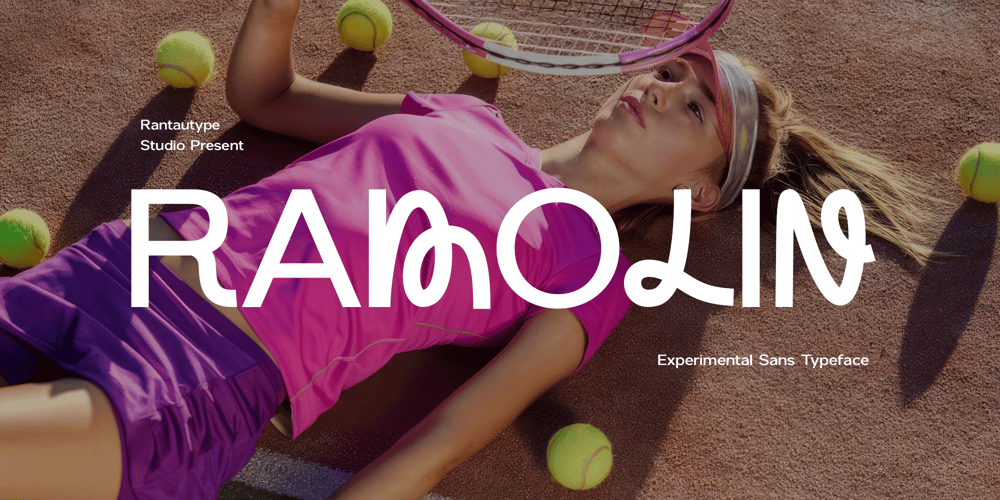
Ramolin Font Family was designed by Yudi Pratama Chandra and published by RantauType. Ramolin contains 1 styles and family package options. Ramolin is a experimental sans font with fun alternate combination.. Ramolin come with alternate playful look and flownes curve make it more attractive, you have the flexibility to mix & match to create the perfect combination.Ramolin is a perfectly choice for any creative endeavor, chic, lifestyle design such as logos, advertisements, watermark on photography, stationery, branding project, display and magazine, invitation, corporate brand, product design, label, business project and many other project with modern or fun touch.What you have: Standart Glyphs Numberial and Functional Alternate and Ligature Works on PC & Mac Simple installations Accessible in Adobe Illustrator, Adobe Photoshop, Adobe InDesign, even work on Microsoft Word. Fonts include Multilingual Character for: Afrikaans, Albanian, Asu, Basque, Bemba, Bena, Breton, Chiga, Cornish, Dutch, English, Estonian, Filipino, Finnish, Friulian, Galician, Gusii, Indonesian, Irish, Italian, Kabuverdianu, Kalenjin, Kinyarwanda, Luo, Luxembourgish, Luyia, Machame, Makhuwa-Meetto, Makonde, Malagasy, Manx, Morisyen, North, Ndebele, Nyankole, Oromo, Portuguese, Quechua, Romansh, Rombo, Rundi, Rwa, Samburu, Sango, Sangu, Scottish, Gaelic, Sena, Shambala, Shona, Soga, Somali, Spanish, Swahili, Swedish, Swiss, German.Thank you for your purchase!Hope you enjoy with our font!*Please read FAQ page before make a purchase.